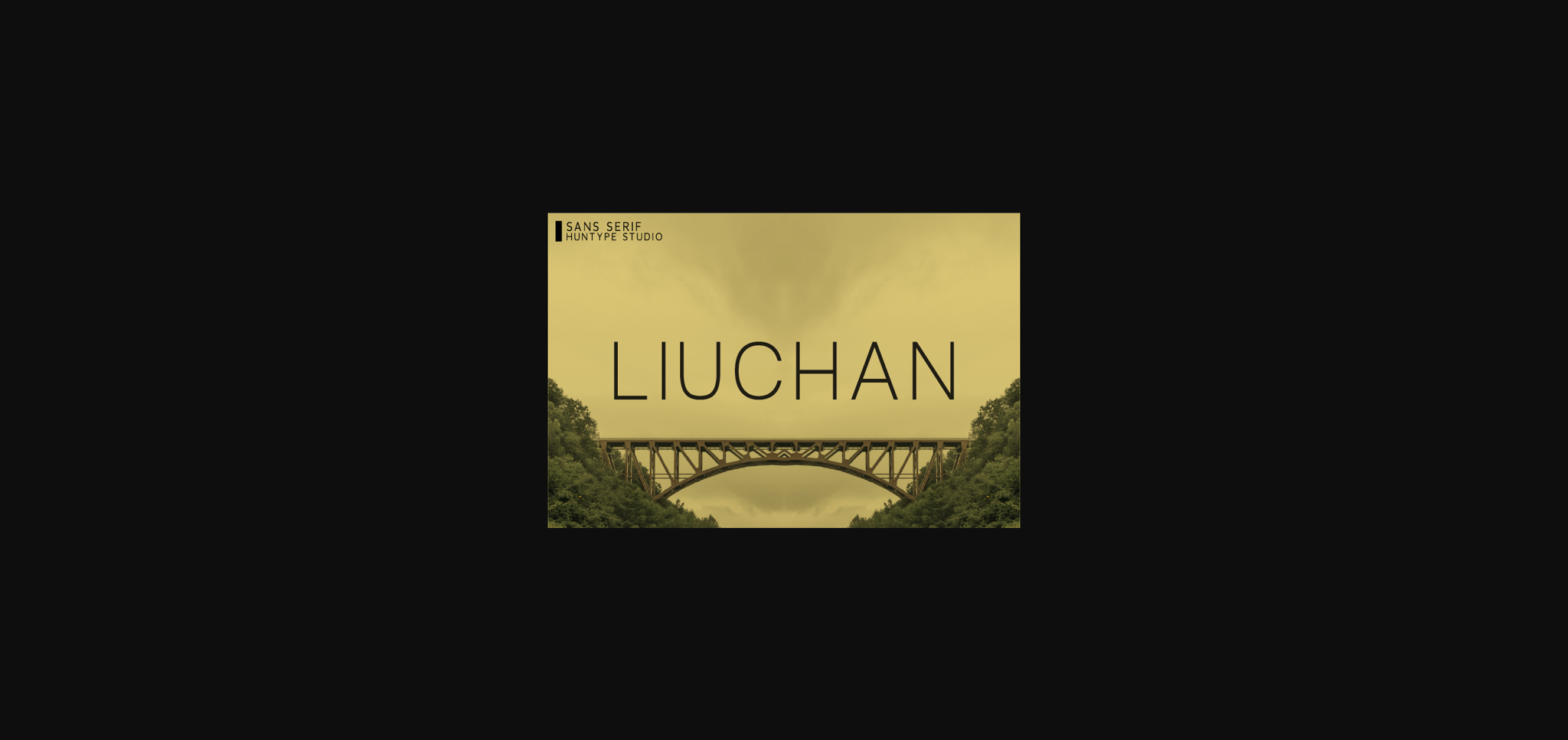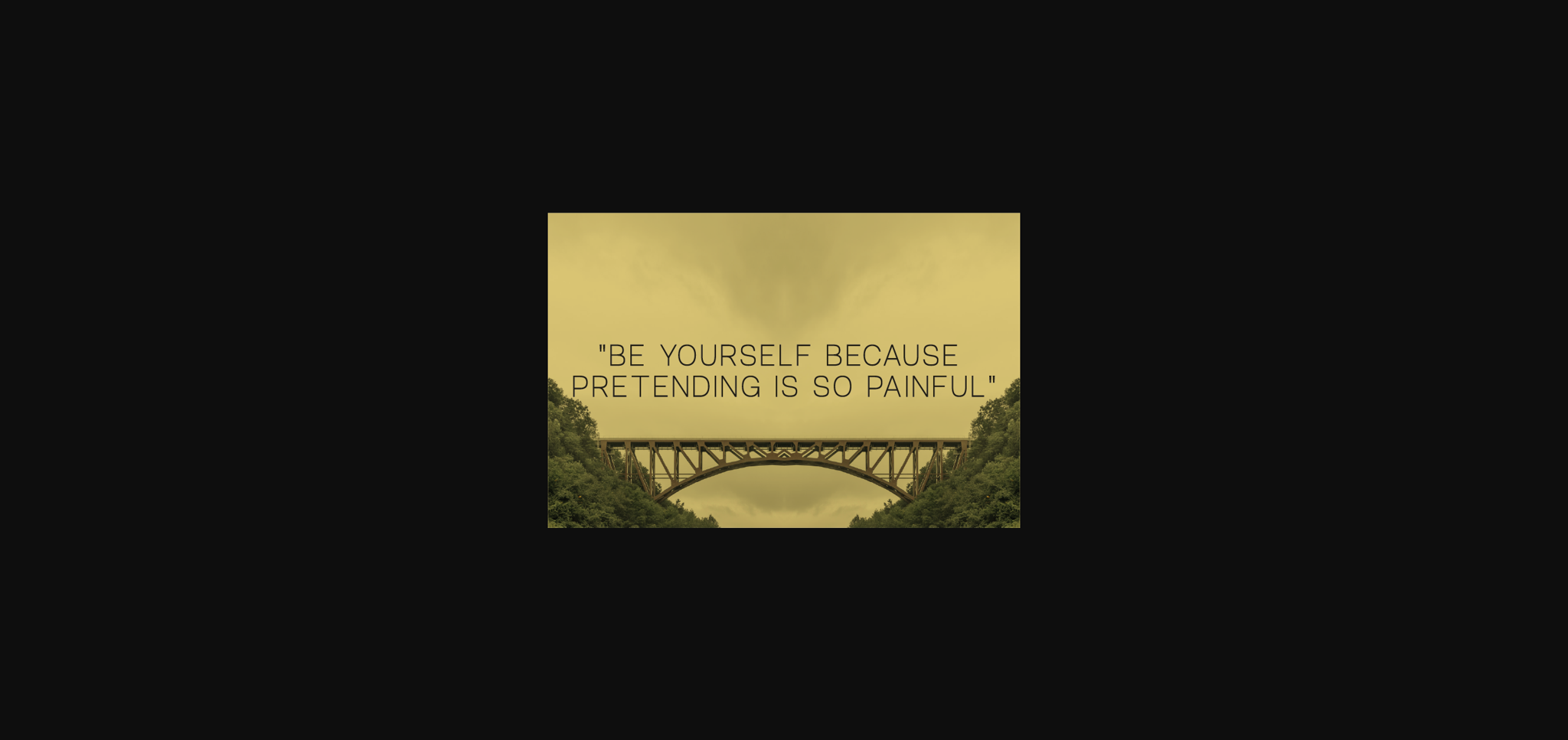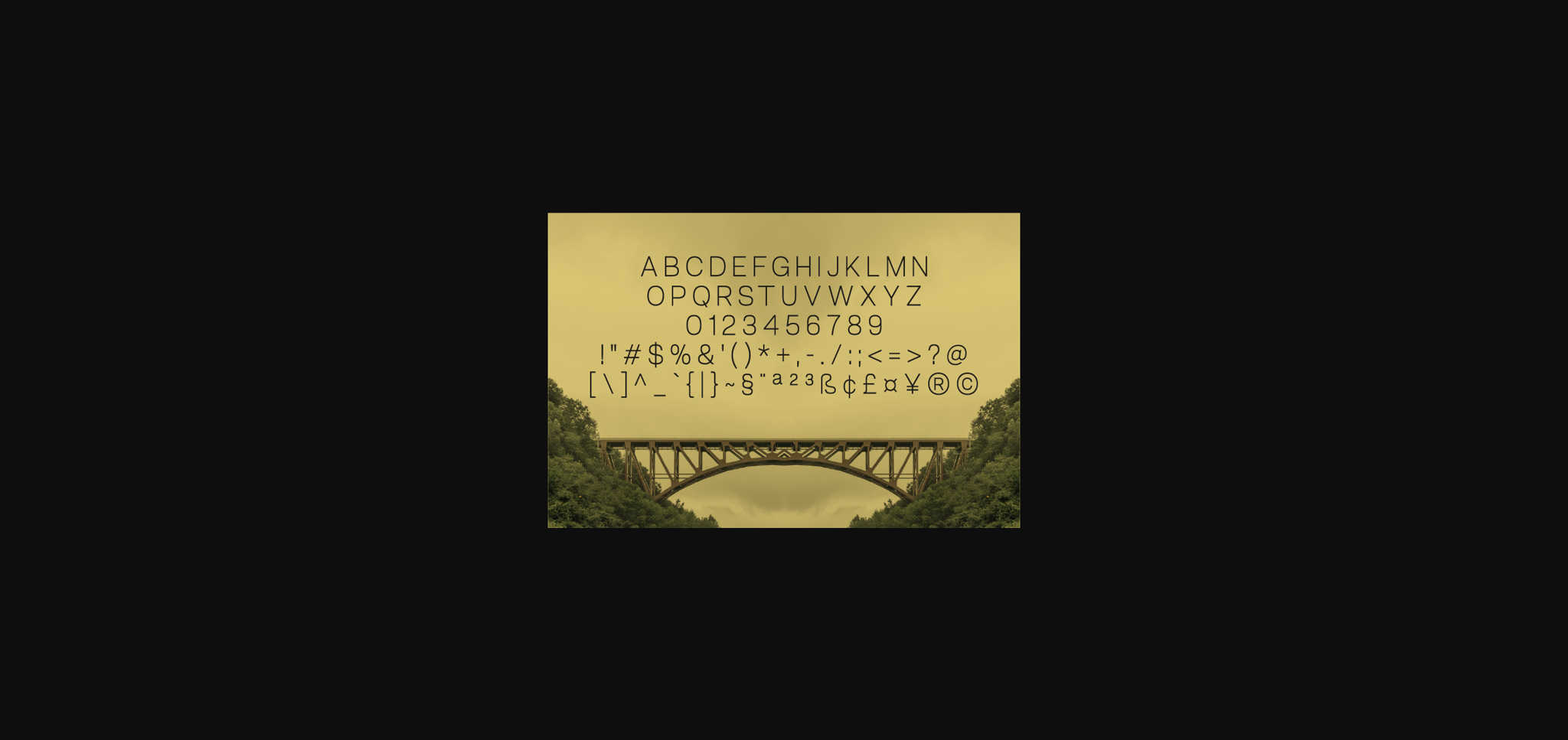
Liuchan Font
About Liuchan Font
Liuchan emerges as a sleek and refined sans serif font, boasting a minimalistic and tidy design that effortlessly enhances a wide array of projects. With its versatility and understated elegance, this font seamlessly integrates into various design contexts, elevating your creative endeavors to new heights and ensuring they stand out with effortless sophistication.
At the core of Liuchan’s appeal is its clean and precise letterforms, which exude a sense of clarity and professionalism. Whether you’re crafting sleek logos, designing elegant headlines, or developing minimalist branding materials, Liuchan’s minimalist aesthetic serves as a versatile canvas for your creativity, allowing your designs to shine without distraction.
One of Liuchan’s key strengths lies in its adaptability to diverse projects and industries. From digital interfaces to print publications, Liuchan effortlessly complements a wide range of applications, ensuring consistency and coherence across your design portfolio. Its timeless appeal transcends trends, making it a reliable choice for projects of any scale or scope.
Moreover, Liuchan’s minimal and neat design contributes to enhanced readability and visual impact, ensuring that your message is communicated effectively to your audience. Whether viewed on screens or in print, Liuchan’s well-crafted characters maintain optimal legibility, enhancing the user experience and engagement.
Incorporating Liuchan into your creative projects is sure to elevate their aesthetic appeal and leave a lasting impression on your audience. Whether you’re a graphic designer, web developer, or marketing professional, Liuchan offers a versatile and stylish solution for bringing your ideas to life with sophistication and flair.
In summary, Liuchan is more than just a font; it’s a versatile design tool that empowers you to create visually stunning and impactful projects. With its minimal and neat sans serif design, Liuchan adds a touch of elegance and sophistication to any design endeavor. Embrace Liuchan and discover how it can make your creative ideas stand out with effortless style and refinement.